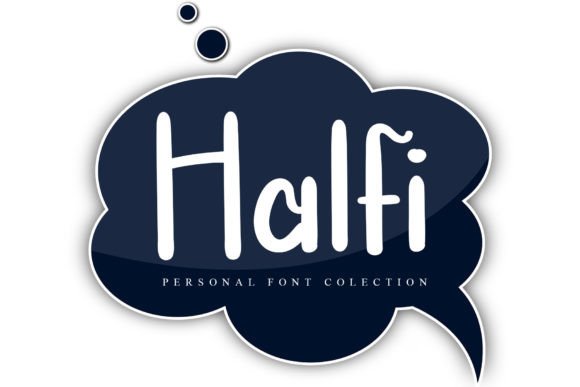
Unleash the Enchantment of Halfi: A Font that Captivates Hearts
Journey into the enchanting realm of Halfi, a script font that embodies elegance, creativity, and boundless possibilities. With its graceful strokes, Halfi dances across your designs, leaving a trail of beauty and sophistication.
Step into a world where your designs come alive, adorned with the enchanting allure of Halfi. From wedding invitations that whisper sweet promises to greeting cards that embrace heartfelt sentiments, Halfi transforms ordinary words into captivating expressions.
Dive into a sea of creativity, where Halfi's versatility shines like a beacon. Let your imagination soar as you craft logos that exude professionalism and business cards that leave a lasting impression. Unleash your inner artist and watch as Halfi weaves its magic into every project, transforming it into a masterpiece.
Experience the thrill of creating spectacular designs that captivate audiences and leave them spellbound. Halfi's carefully crafted baseline, inspired by nature's own hand, breathes life into your ideas, making them appear tangible and authentic.
Effortlessly access Halfi's full repertoire of glyphs and swashes, thanks to its PUA encoding. Open up a world of artistic expression and let your creativity flow freely. Halfi empowers you to craft designs that resonate with emotion, making a lasting impact on hearts and minds.
Embrace Halfi, the font that ignites passion and ignites the imagination. With every stroke, every letter, every word, Halfi breathes life into your designs, transforming them into captivating works of art.
Dare to be different, dare to be bold, dare to embrace Halfi. Step into a world of creativity unbounded, where your designs take center stage and captivate audiences with their timeless beauty.